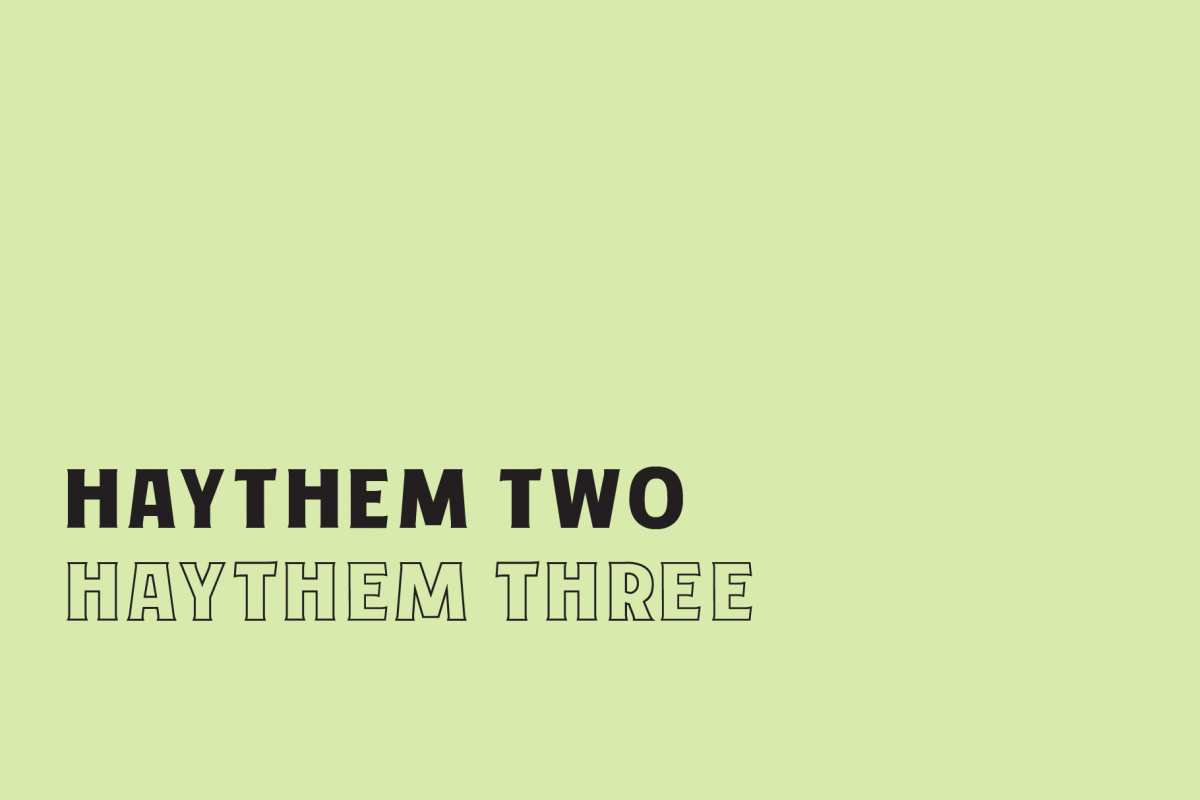
Haythem mini
HaythemTwo-Regular
HaythemThree-Regular
Haythem mini is a mini pack from Haythem font (https://fontbundles.net/rinjanibagaz/109794-haythem) . Come with 2 style of fonts, regular and inline. It makes your creative projects better. Combine 2 of them to result an authentic looking labels, signs, apparel, logotypes, branding, and more.
Haythem Two
Haythem Three